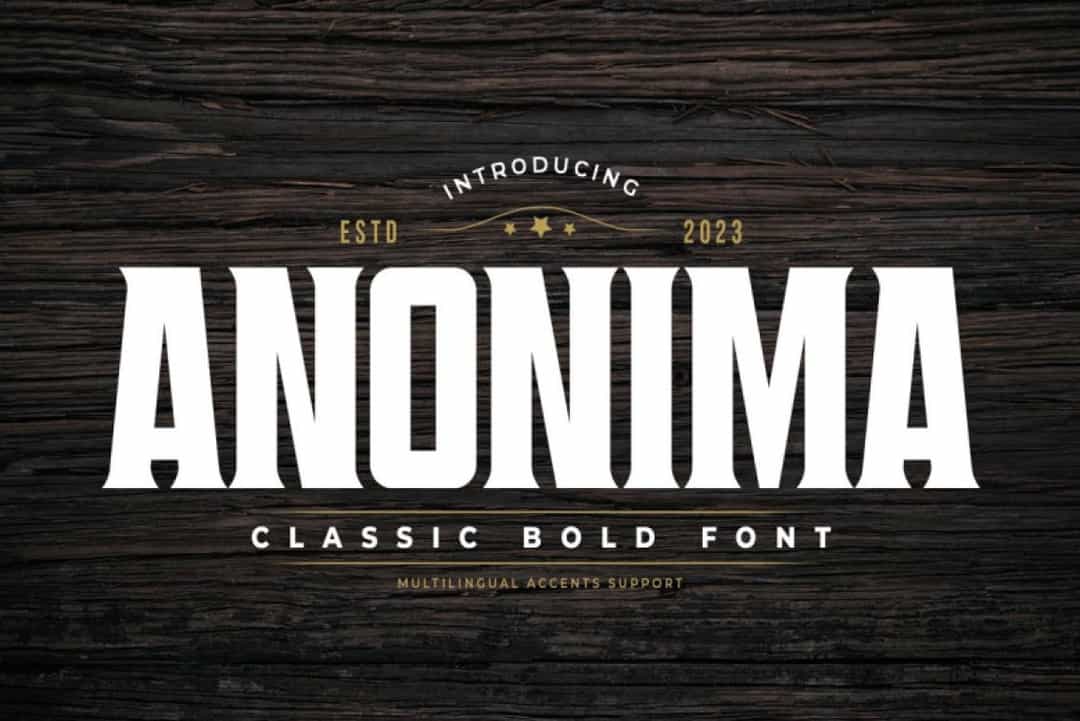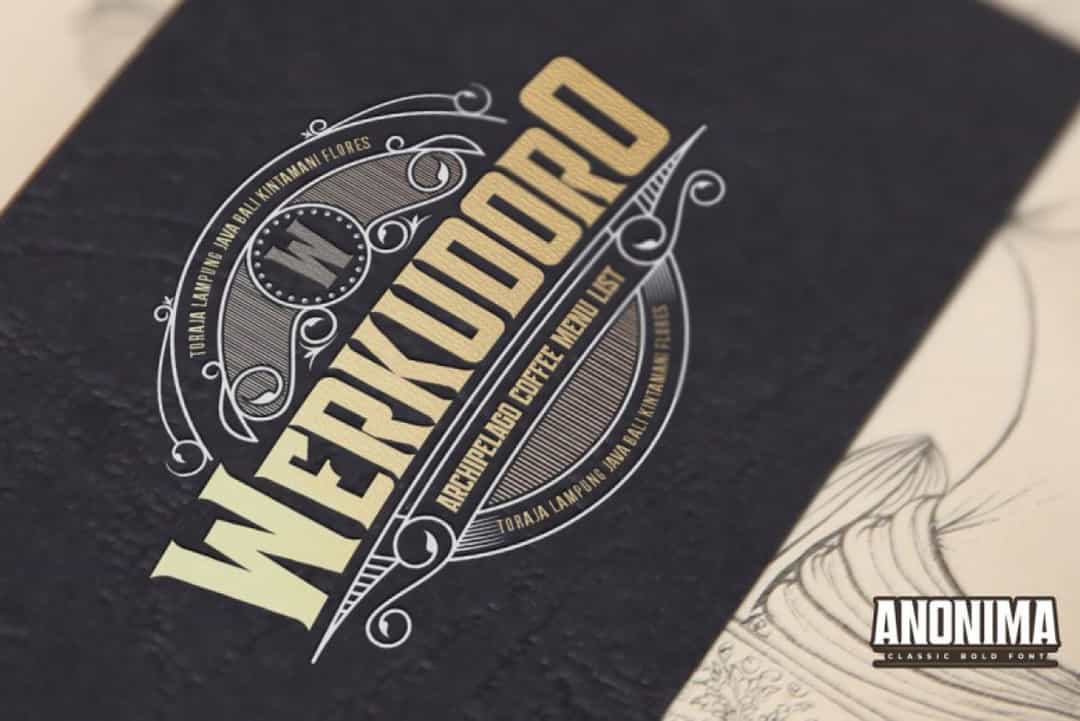
Anonima can be described as an aggressive and bold serif font. No matter the subject matter or design project you undertake, Anonima makes for a fantastic addition to your font library and enhances any design project – ideal for logos or printed quotes, invitations packaging for products, cards lettersheads headers logotypes posters as well as branding and logotypes!